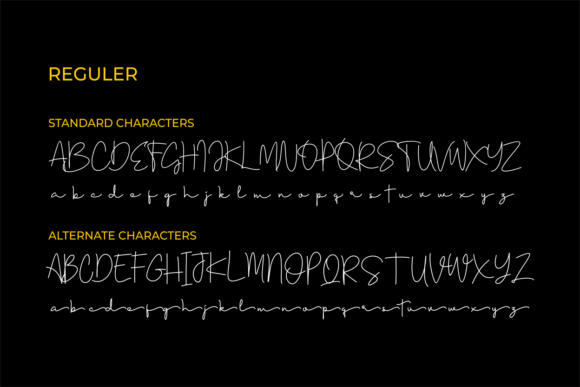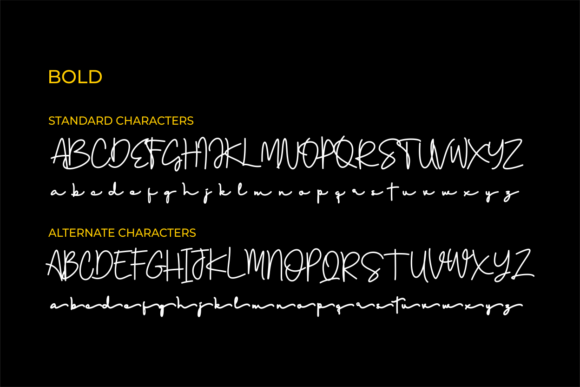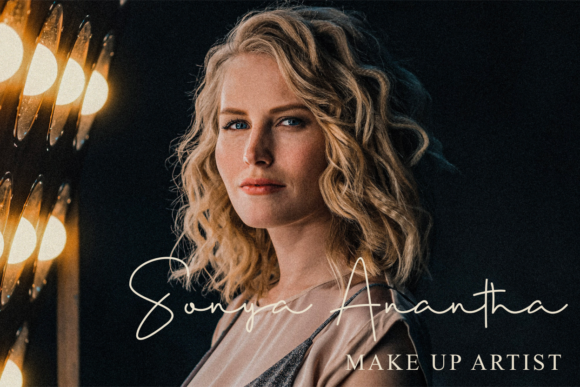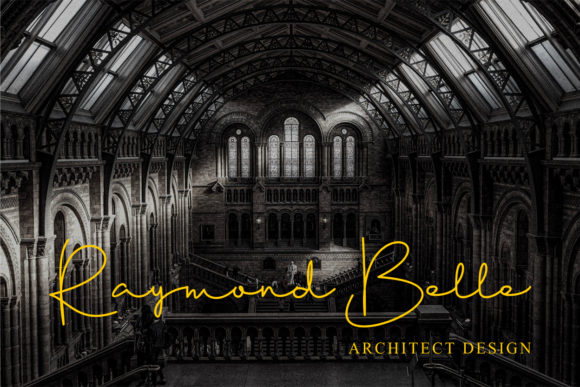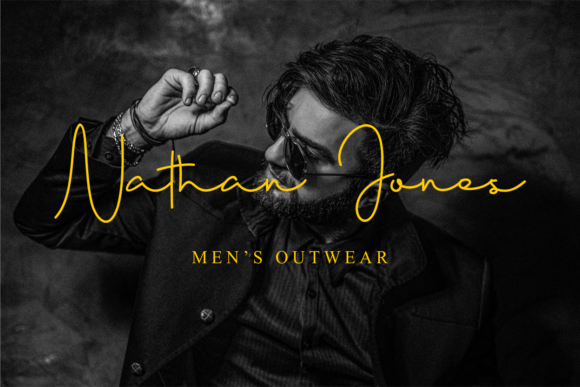
HomeScript FontsGellato Rush Font Script Fonts Gellato Rush Font FacebookXPinterestWhatsApp Gellato Rush Font Poster 2 Gellato Rush Font Poster 3 Gellato Rush Font Poster 4 Gellato Rush Font Poster 5 Gellato Rush Font Poster 6 About Gellato Rush Font Gellato Rush is an elegant and fun handwritten font with a cool vibe. Get inspired by its unique feel! DOWNLOAD ON CREATIVE FABRICAThis font is sold and delivered by Creative Fabrica. Font Canyon may earn a commission if you buy through this link. People also explored Retracula Font Feharitas Font Blocks Font Swift Font Snakebite Font Wizard Font Bellonitta Signature Font Melayu Script Font Allegro Sans Font 343 0 TagsGellato Rush Font Previous articleBrigherdz FontNext articleAncient Font LEAVE A REPLY Cancel reply Comment: Please enter your comment! Name:* Please enter your name here Email:* You have entered an incorrect email address! Please enter your email address here Website: Save my name, email, and website in this browser for the next time I comment. Personal Use Free Farmhouse Christmas Personal Use Free Read more about this font City Tour Personal Use Free Read more about this font Autines Personal Use Free Read more about this font Helsinki Personal Use Free Read more about this font BLOG Free Fonts Risk: Why Free Fonts Can Be Dangerous for Designers Free Fonts Risk: Why Free Fonts Can Be Dangerous for Designers Using free fonts is a common practice in web and graphic design. However, the... How to Cut Any Font on Cricut: Convert a Font to SVG (Free) Free vs Paid Fonts: Why Investing in Premium Fonts Is Worth It To increase your work productivity, choose the most readable fonts.